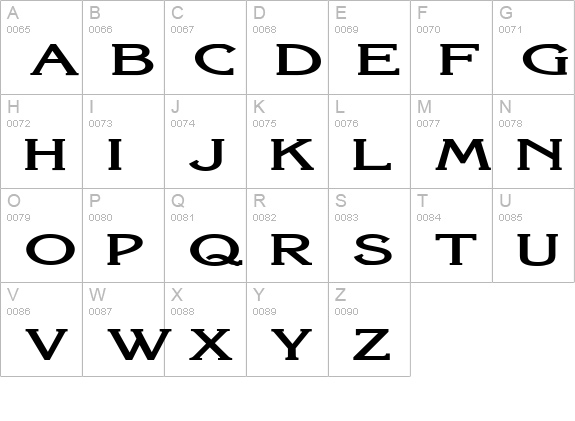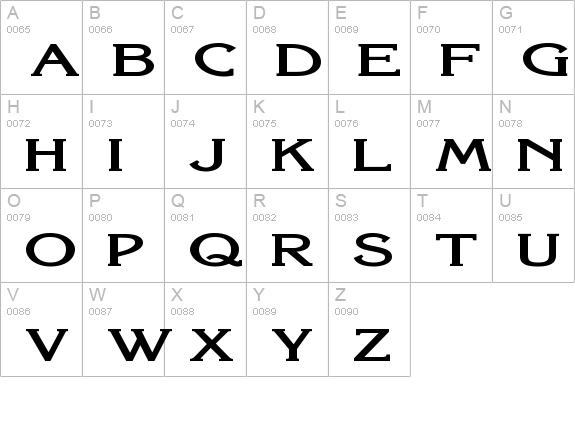
Keira Extended Bold is a strong, high-contrast, extended-width variant in the Keira typeface family \xE2\x80\x94 well suited to headlines, attention-grabbing titles, and strong calls-to-action.
Introducing Keira Extended Bold, a striking and versatile typeface that effortlessly commands attention. With its bold and confident letterforms, Keira Extended Bold is designed to make a bold statement in any design project. Whether it's a captivating headline, a powerful logo, or a stunning poster, this font is sure to make a lasting impression. The extended proportions of Keira Extended Bold add a touch of elegance and sophistication to its bold nature, making it the perfect choice for projects that require a balance of strength and refinement. The carefully crafted letterforms feature strong, clean lines and distinctive curves, resulting in a font that is visually impactful and visually pleasing. Keira Extended Bold is not only visually stunning but also incredibly versatile. Its bold weight and extended form make it ideal for a wide range of design applications, including branding, advertising, packaging, and more. This font has the ability to elevate any design and convey a sense of power, authority, and modernity. One of the best aspects of Keira Extended Bold is that it is freely available to download at FontsMarket.com. This means that designers and creatives can easily access this stunning font and incorporate it into their projects without any limitations. Whether you're a professional designer or a hobbyist, Keira Extended Bold offers a high-quality, premium typeface completely free of charge. So, if you're seeking a font that exudes confidence, style, and versatility, look no further than Keira Extended Bold. Download it today at FontsMarket.com and take your designs to new heights with this captivating and freely available typeface.